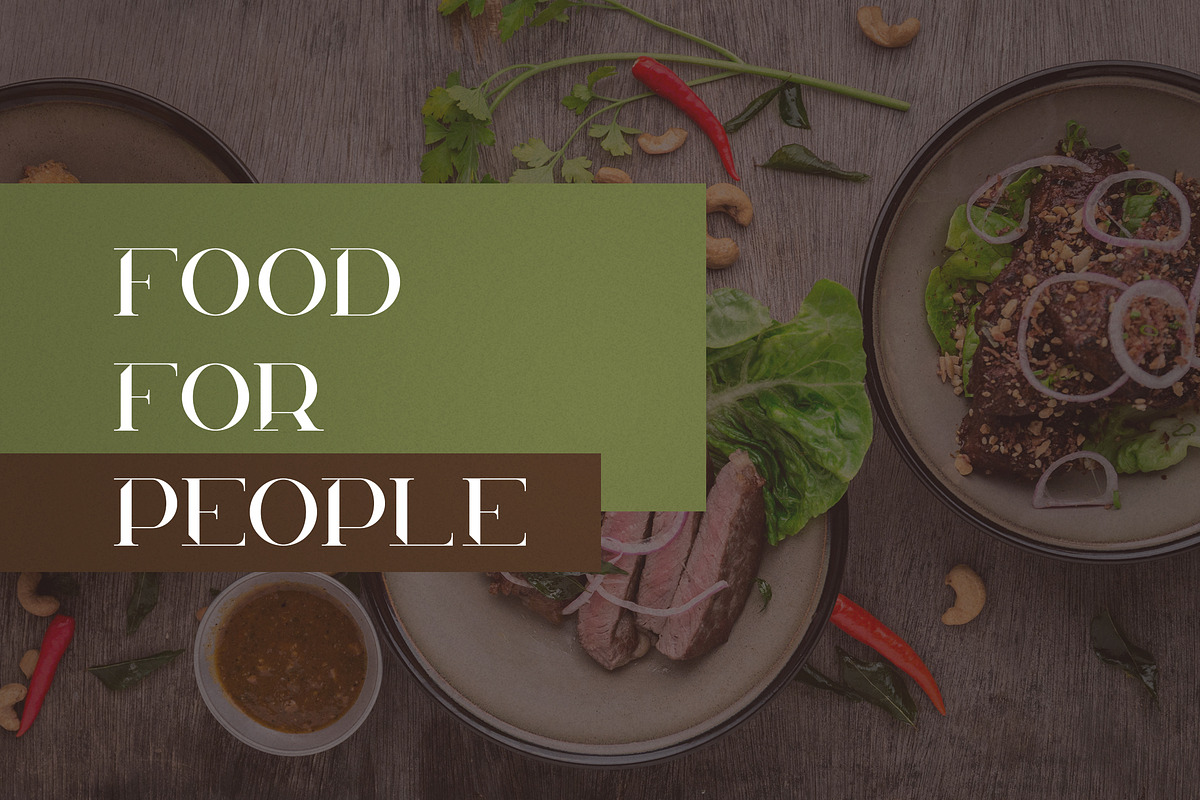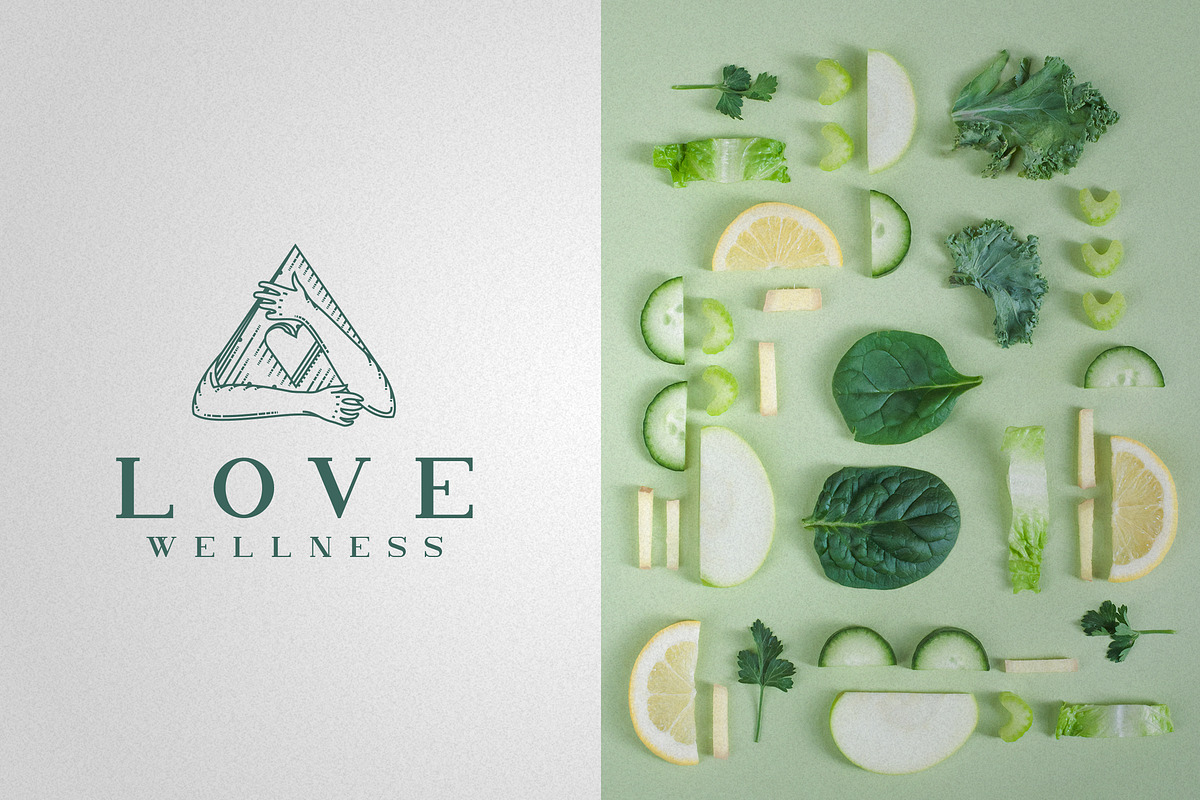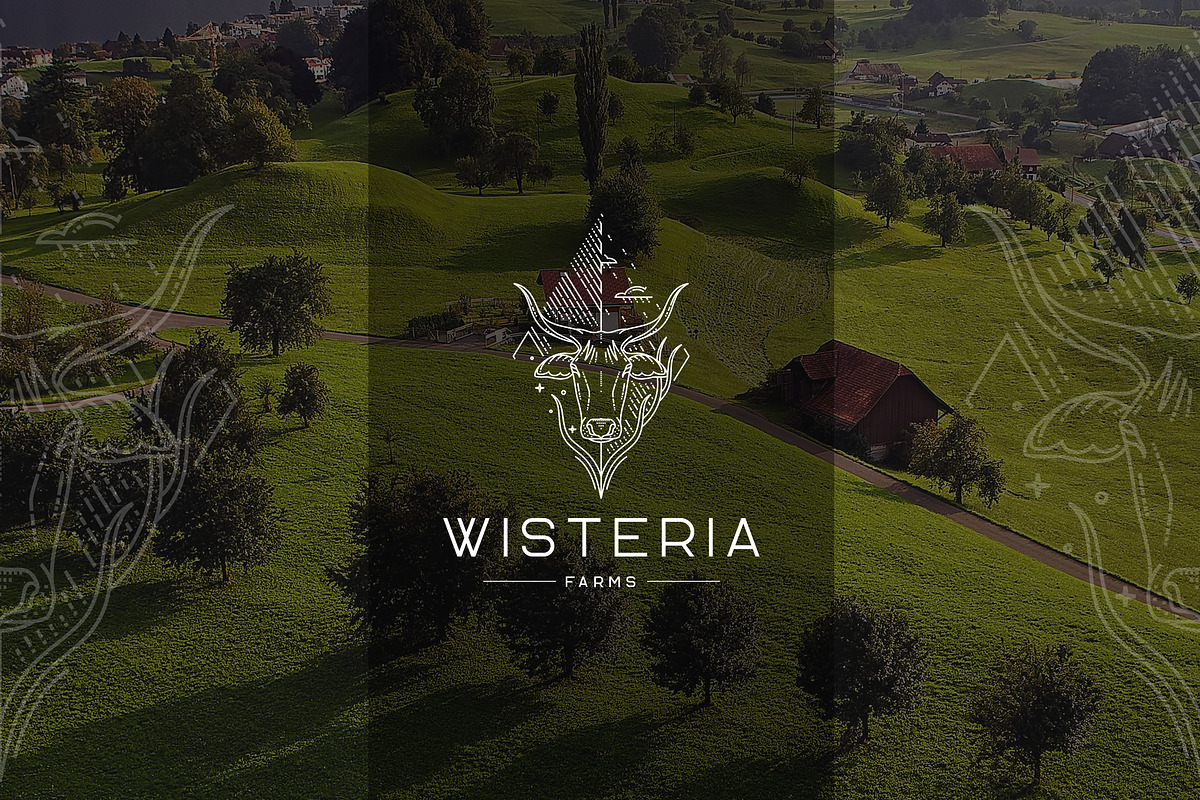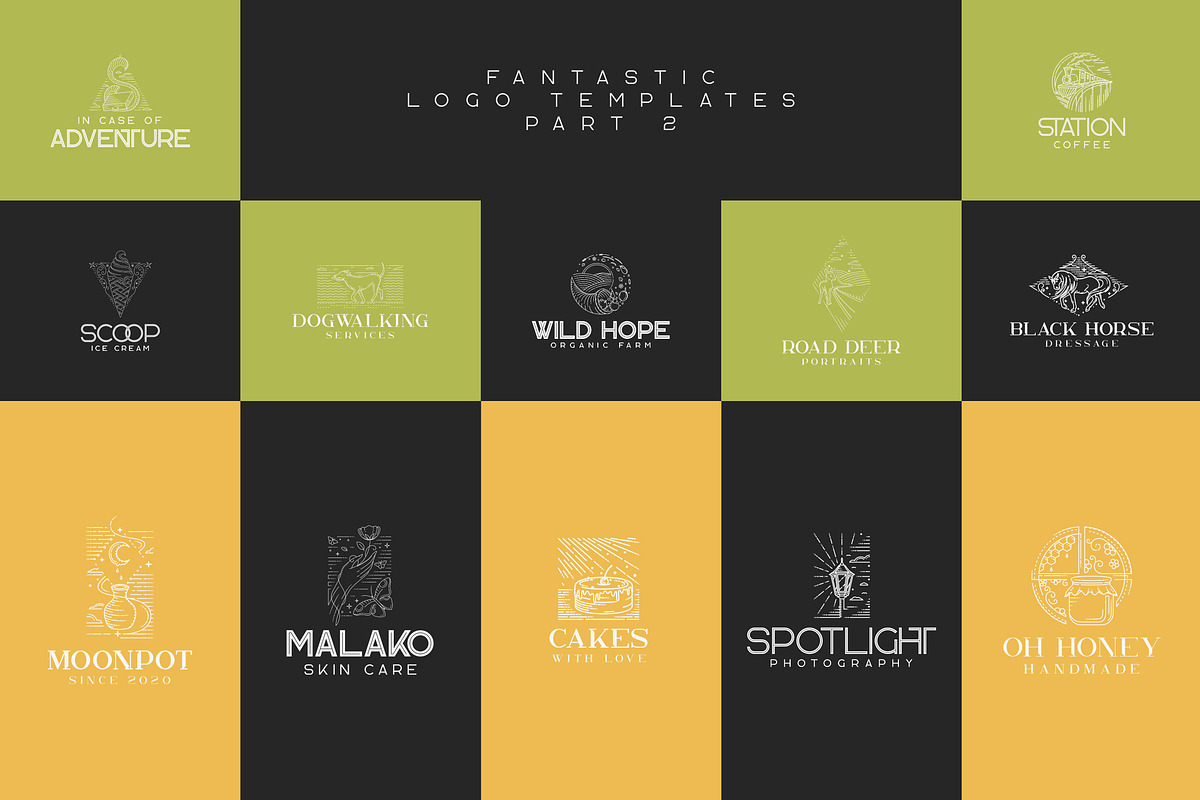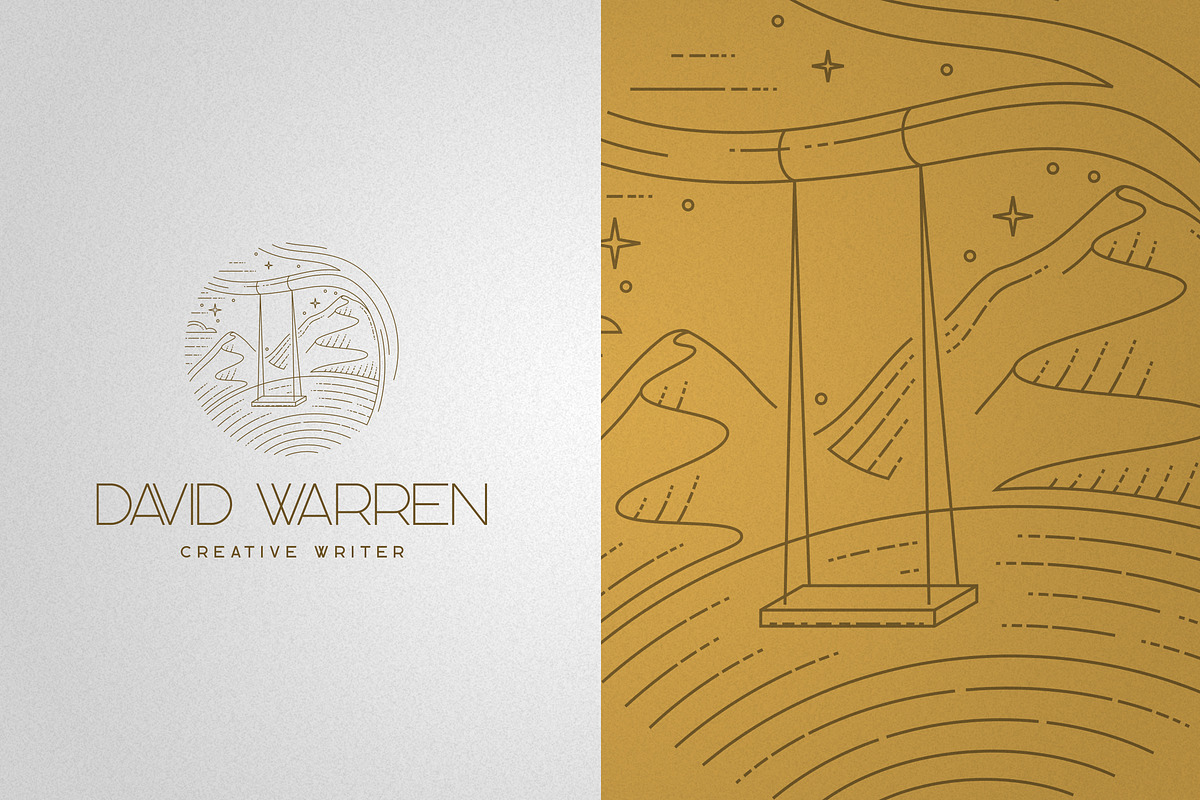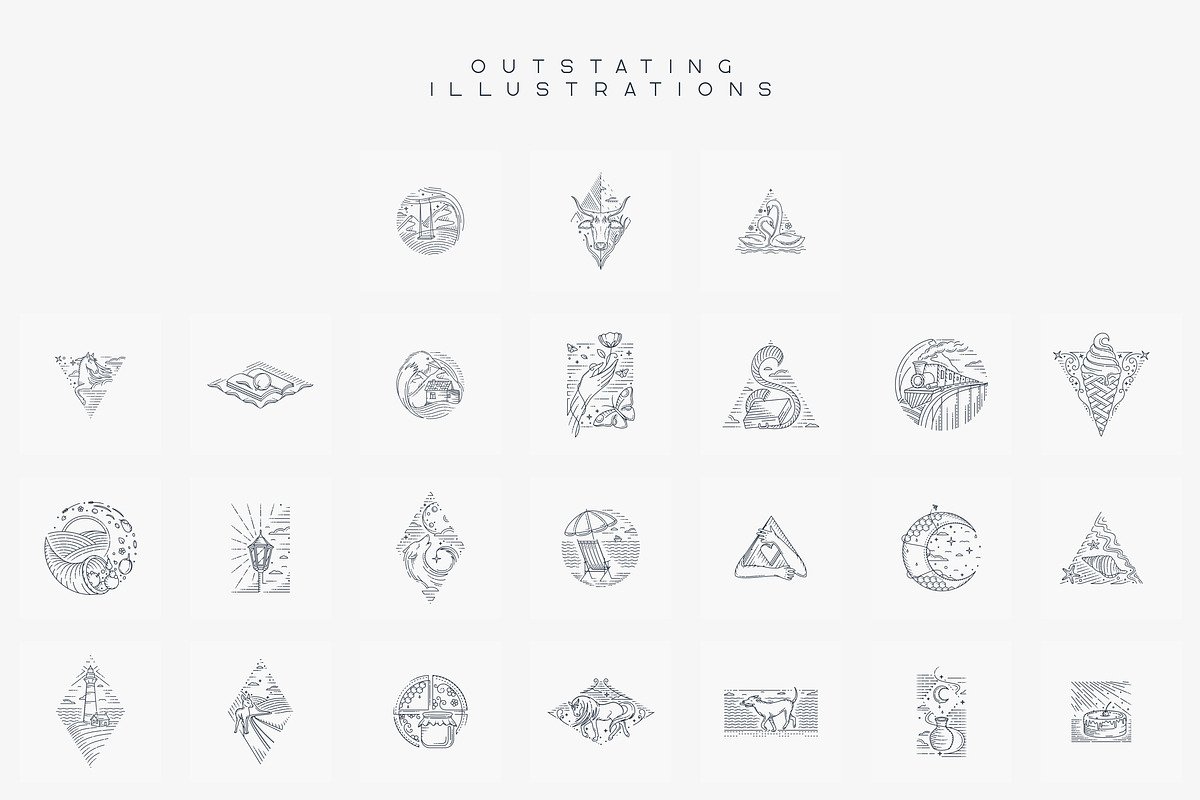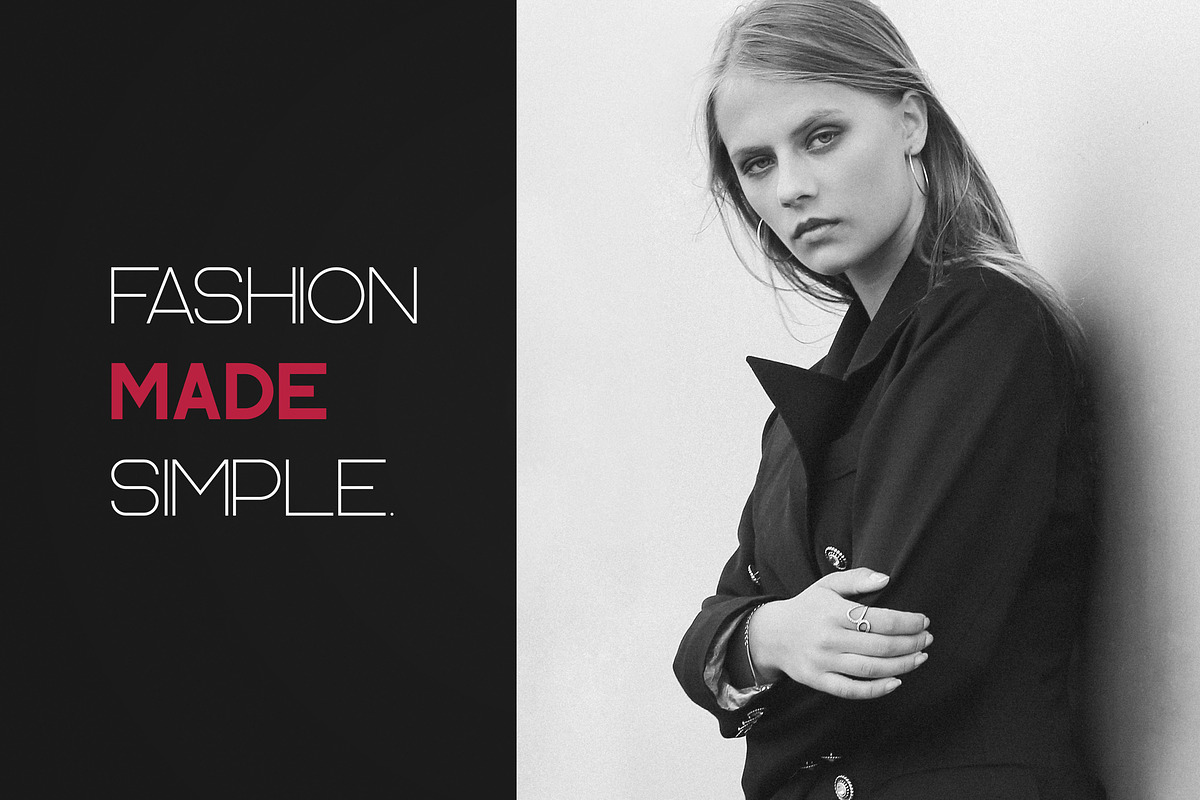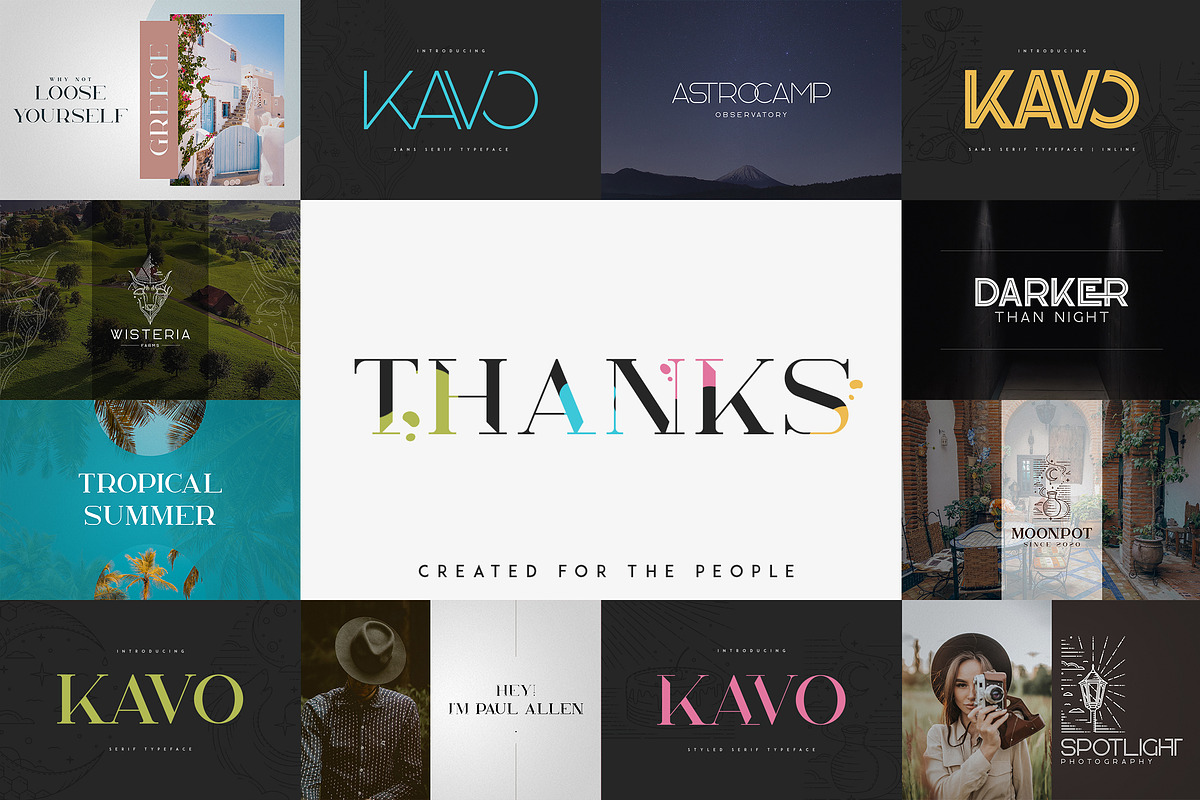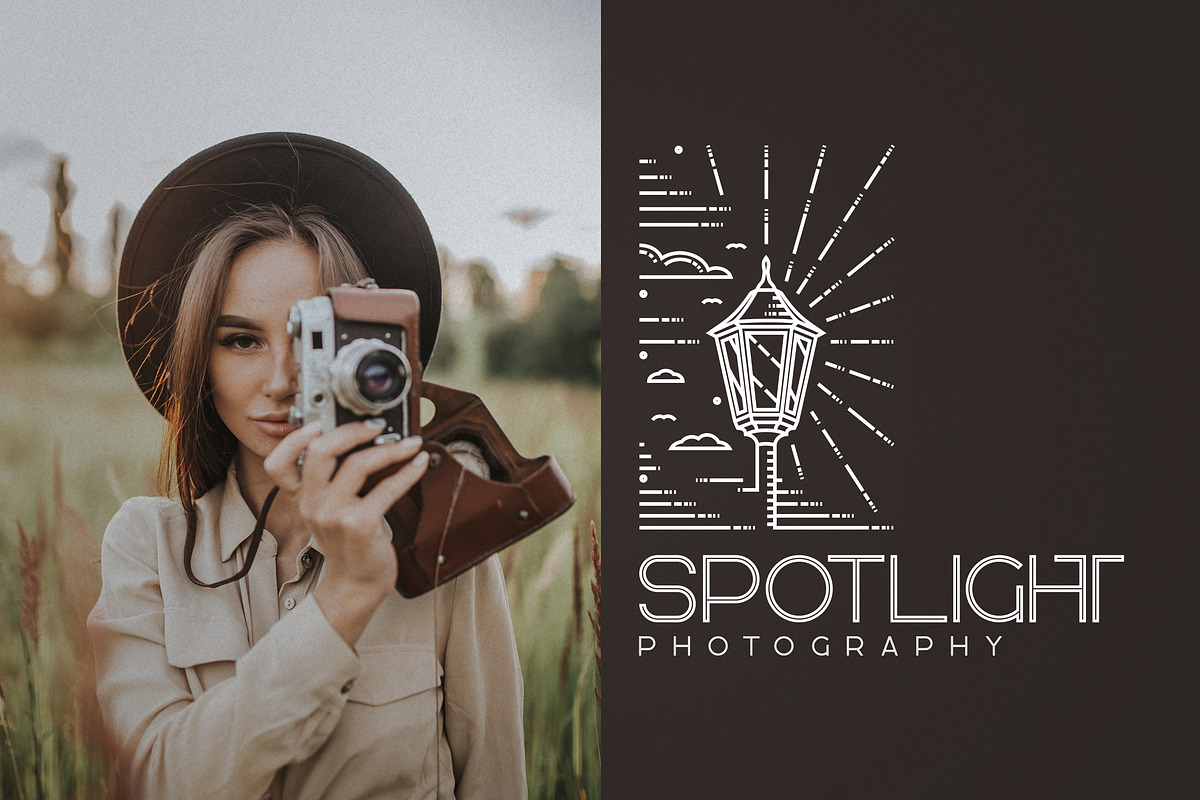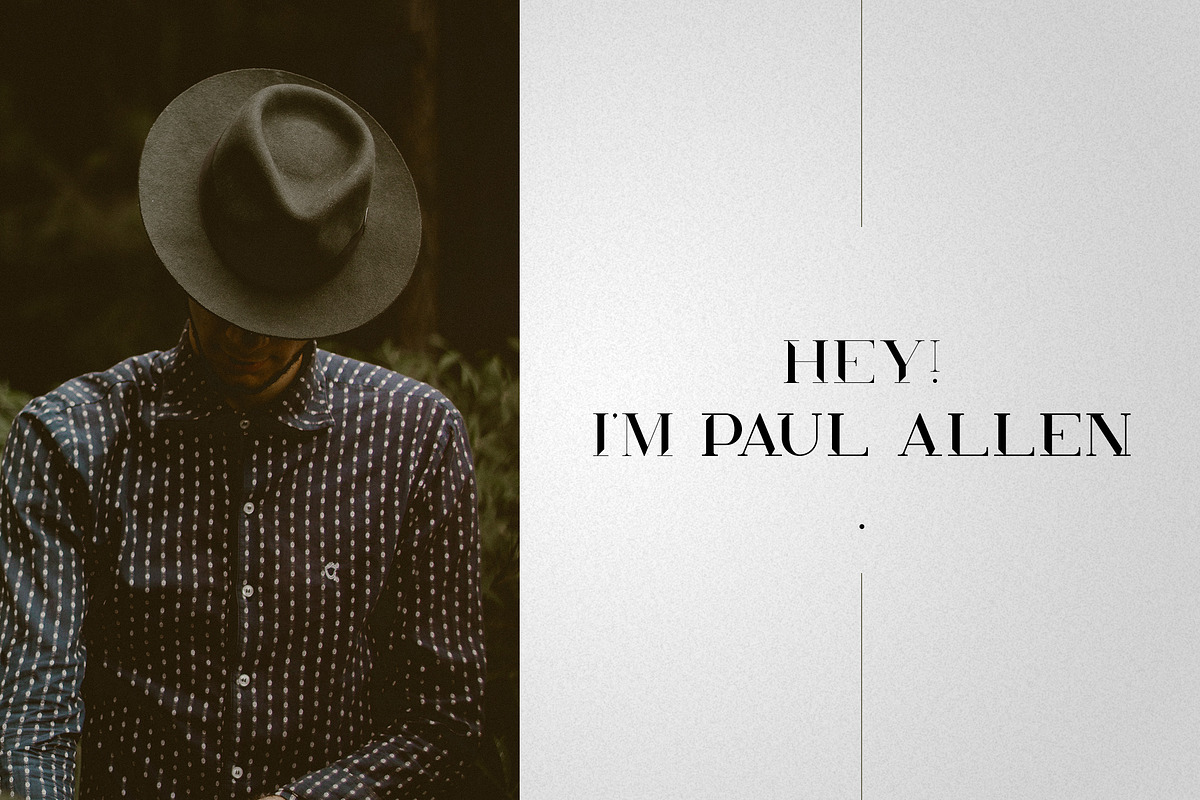
Kavo Font Bundle 17in1 + 24 logos
Introducing Kavo Family - 17 fonts + 24 logo templates
Kavo is clean, modern family with 17 fonts, 24 awesome vector designs, 24 logo templates and multilingual support. It's a very versatile font that works great in large and small sizes.
Kavo styled serif is perfect for branding projects, home-ware designs, product packaging, magazine headers - or simply as a stylish text overlay to any background image.
- Uppercase, numeral, punctuation & Symbol
- Sans serif - light, regular, bold, black
- Inline - regular, bold, black
- Serif - hairline, light, regular, bold, black
- Serif Styled - hairline, light, regular, bold, black